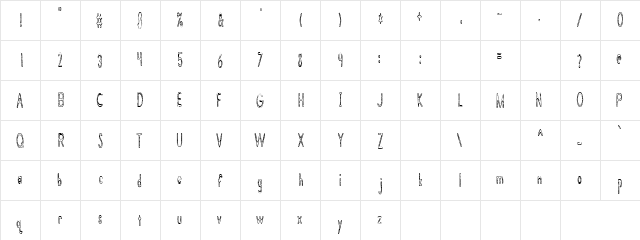
Ol Umbre Regular
Design Context for Ol Umbre Typeface
Ol Umbre is a composed and adaptable typeface that performs quietly and consistently across a wide range of design contexts.